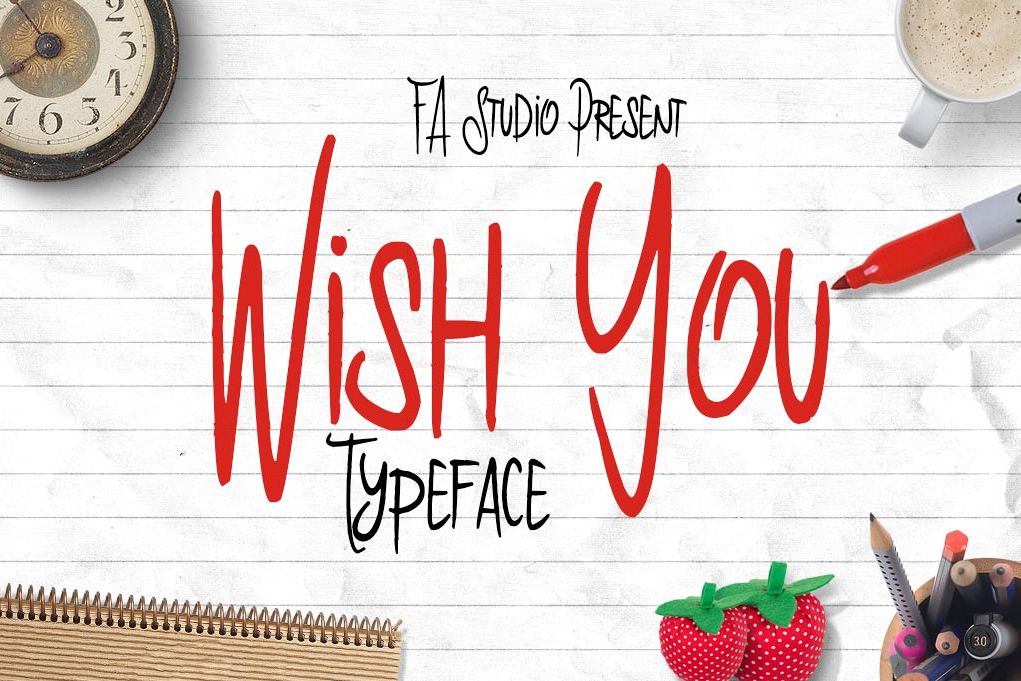
Wish You Typeface
We present a hand-drawn font called WISH YOU. A beauty font that inspired by DIARY and random words that we write on school table. The font comes with ttf and otf files. if any question about the font, please contact me at  thanks, arsenio